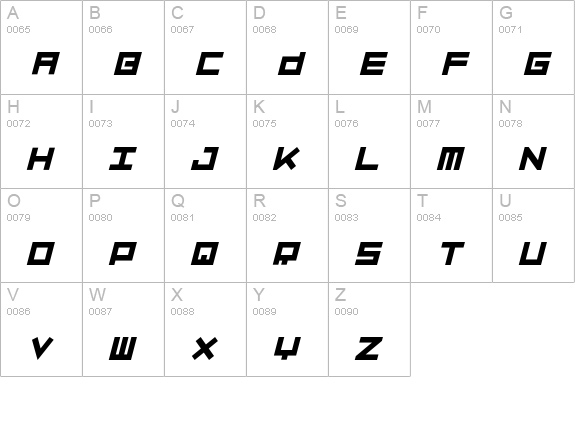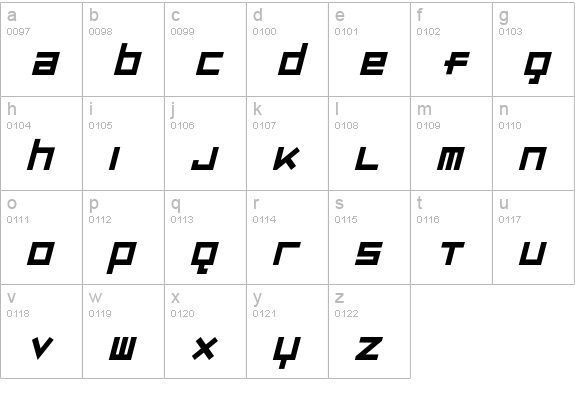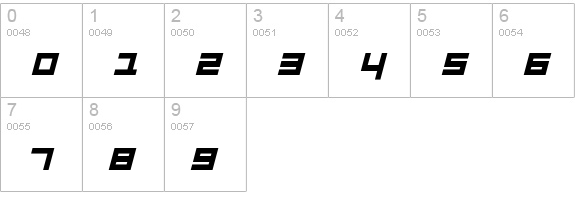
LuggageHeavyObl Font Details
Introducing LuggageHeavyObl font, a striking and bold typeface designed to make a statement. The unique slanted and heavy design of this font gives it a distinctive and eye-catching appearance, perfect for adding a touch of modern flair to your projects. With its strong presence and commanding presence, LuggageHeavyObl font is ideal for headlines, posters, signage, and other display purposes where you want your text to stand out. The heavy weight of the font gives it a sense of authority and power, making it a great choice for conveying a strong and bold message. Best of all, LuggageHeavyObl font is completely free to download at FontsMarket.com. Whether you're a designer looking to add a new font to your collection or someone in need of a striking typeface for a project, LuggageHeavyObl font is a fantastic choice that won't cost you a thing. Download it today and start using this powerful and impactful font in your designs!